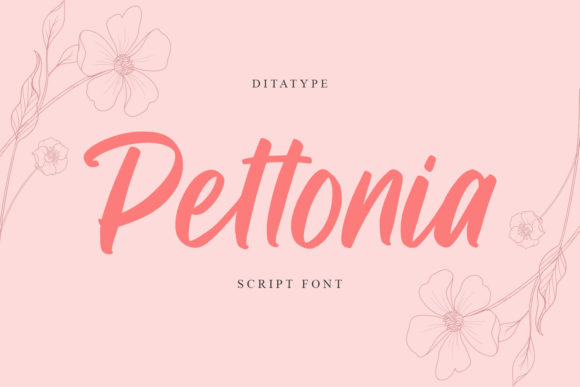
Step into the realm of elegance and sophistication with the Pettonia Font, a masterpiece of digital artistry that will bring your creative visions to life. This exquisite handwritten font, crafted by the creative minds at Ditatype, harmoniously blends the allure of traditional calligraphy with the vibrancy of modern design.
With its graceful curves, delicate strokes, and impeccable attention to detail, the Pettonia Font exudes a timeless charm that is both captivating and inviting. Its unique character and versatility make it an ideal choice for a wide range of design projects, from eye-catching logos and branding materials to elegant invitations and heartfelt personal messages.
Let your creativity soar as you explore the boundless possibilities of the Pettonia Font. Its carefully crafted glyphs and extensive language support ensure seamless integration into any project, allowing you to express yourself with unparalleled artistry and precision.
Discover the allure of sophistication as you immerse yourself in the world of the Pettonia Font. Its timeless beauty and effortless flow will transform your designs into captivating masterpieces, leaving a lasting impression on your audience.
Unleash the power of expression and elevate your creative endeavors to new heights with the Pettonia Font. Its captivating presence and boundless versatility will ignite your imagination and inspire you to create designs that captivate and enchant.